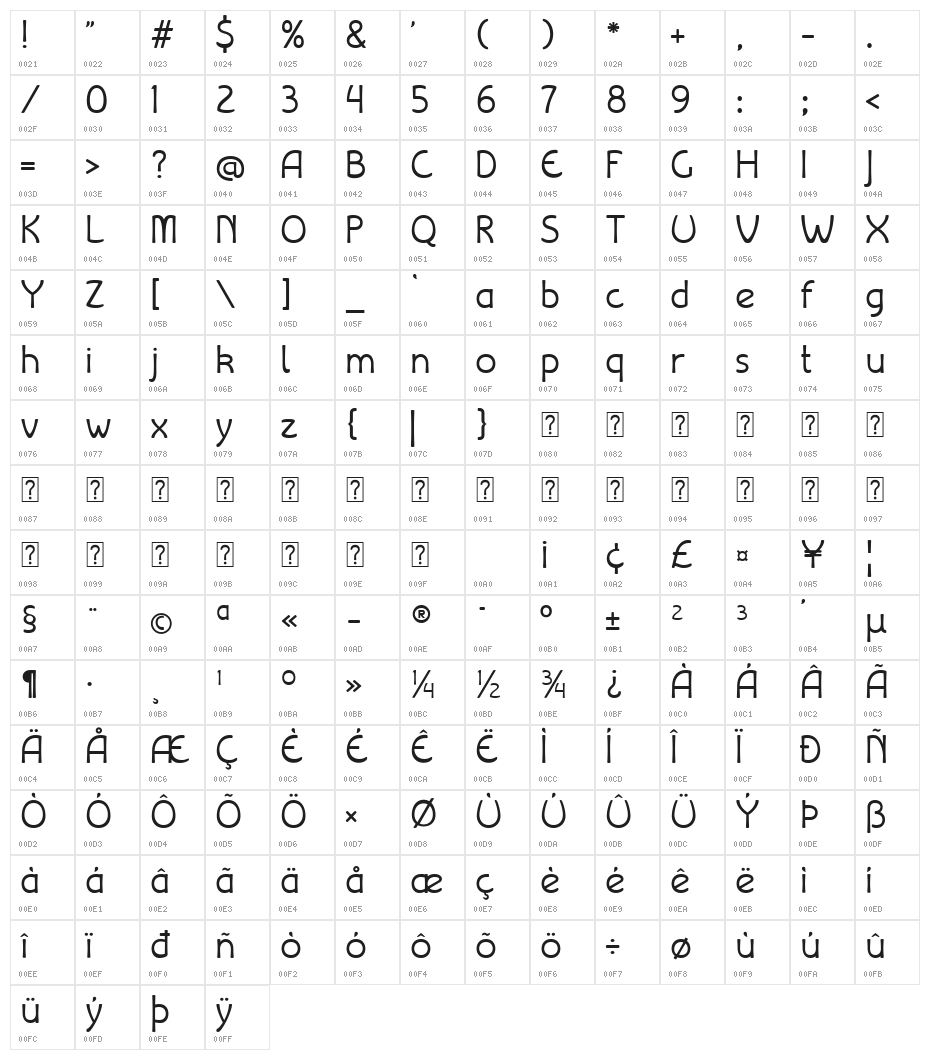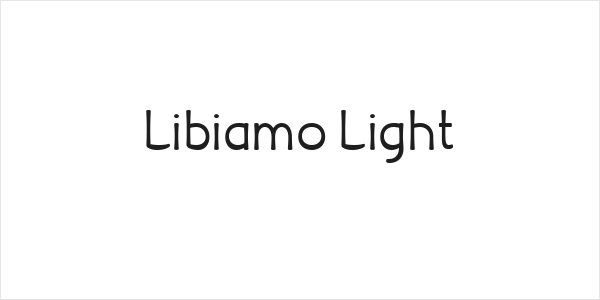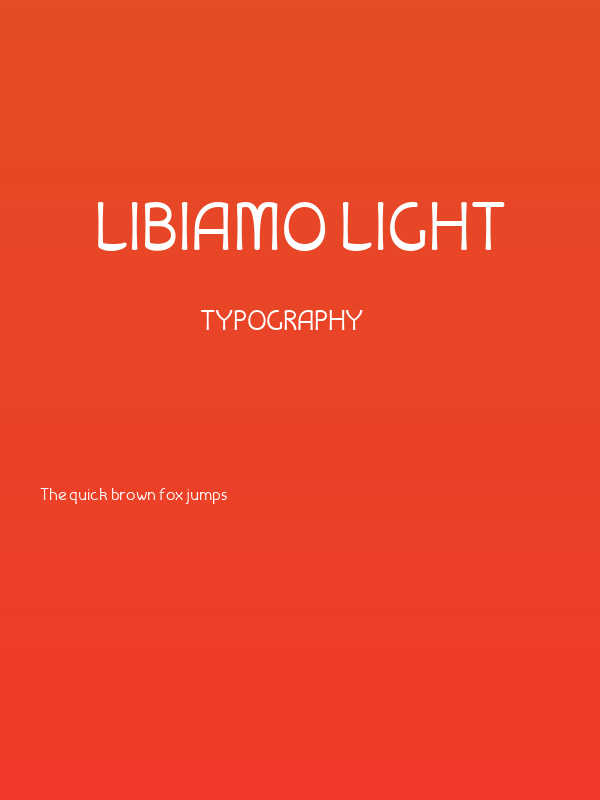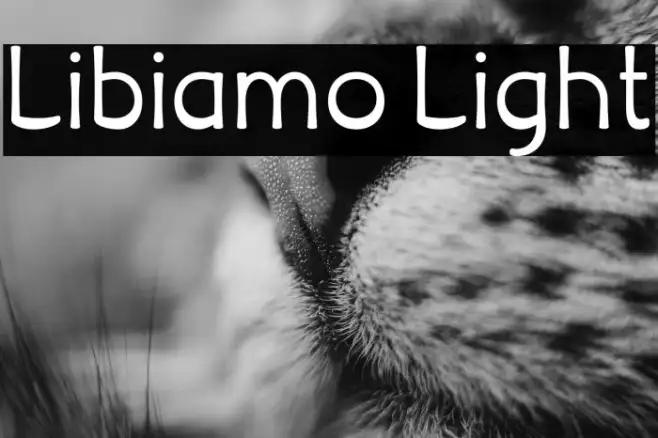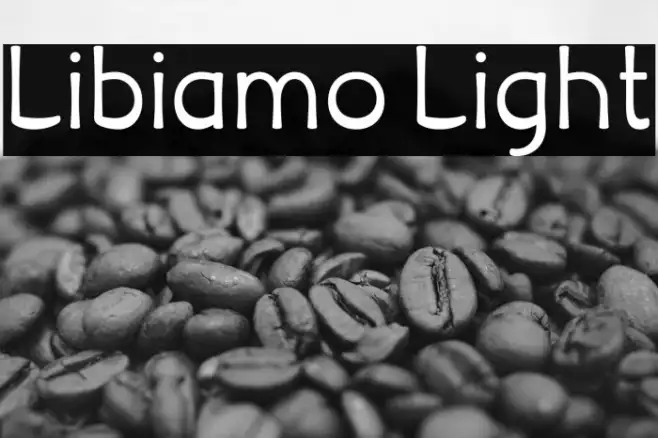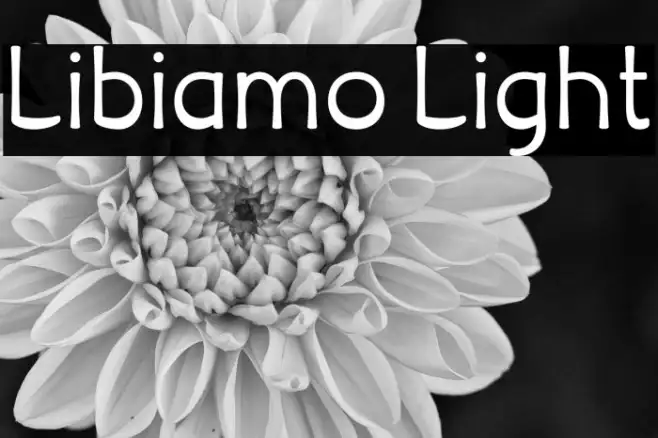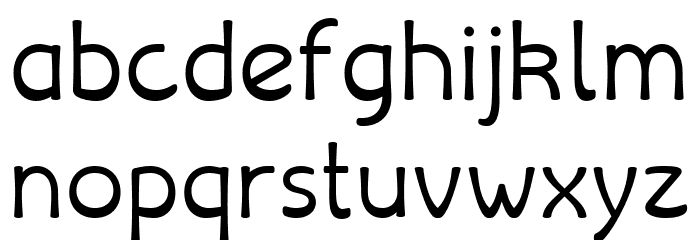
Libiamo Light Font
Libiamo Light Description
This font features a playful and rounded design, characterized by smooth curves and a friendly appearance. The letters have a consistent stroke width, contributing to a harmonious and balanced look. The uppercase letters are slightly taller than the lowercase, maintaining a clear distinction while ensuring readability. The numerals are well-proportioned, aligning seamlessly with the overall style. Special characters are crafted with the same rounded aesthetic, making them blend effortlessly with the alphabet. This font exudes a casual and approachable vibe, making it suitable for various creative applications.